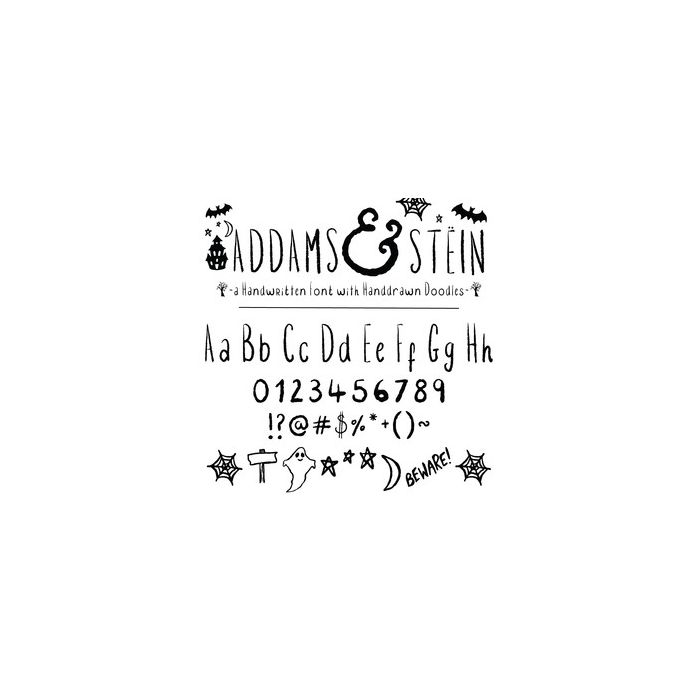
Addams & Stein Halloween Font - handwritten font with upper and lowercase letters, numbers, punctuation, international characters and glyphs as well as hand drawn Halloween doodles. All accessible via the character map / glyphs panel.